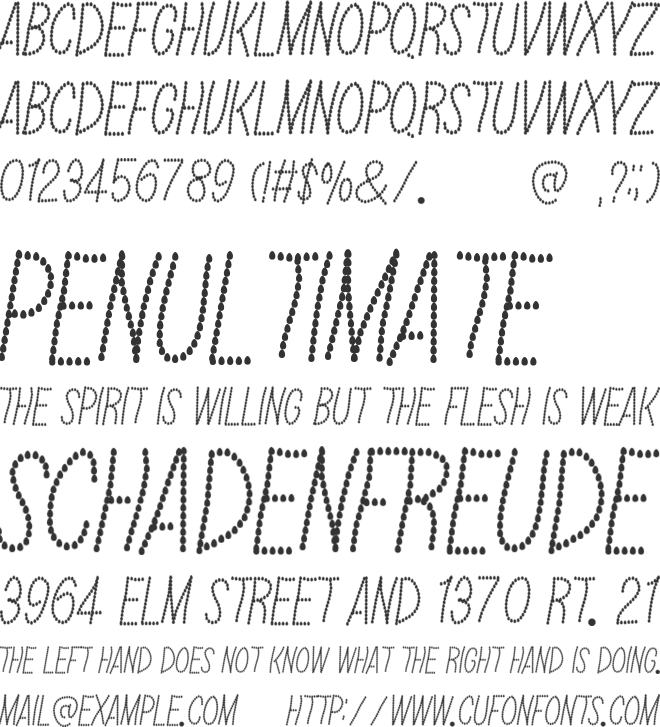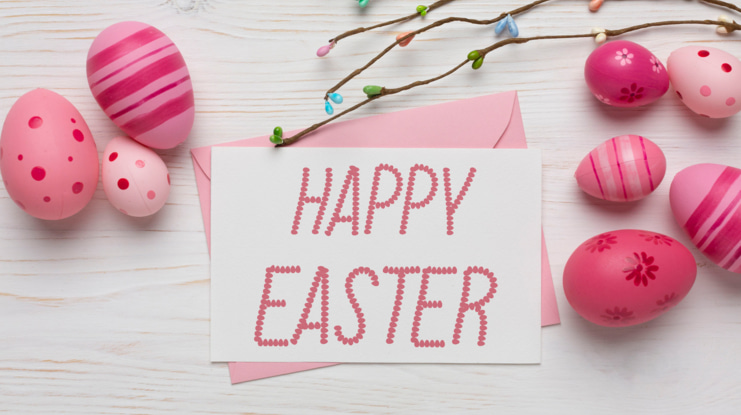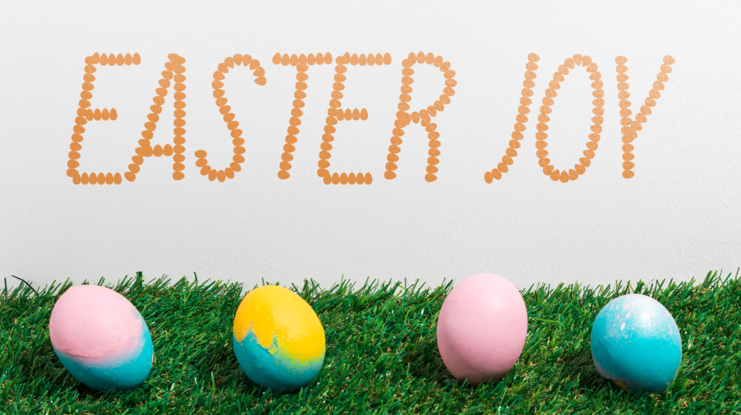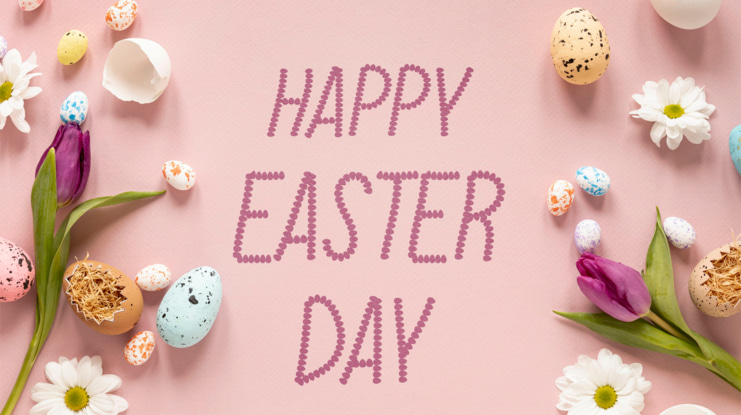
Easter Joy Font
Easter Joy is a bouncy, happy font that is perfect for Easter or springtime designs. The letters are bouncy and cheerful, with a happy, springtime feel. Easter Joy Font is the perfect font to use to create Easter-themed designs.